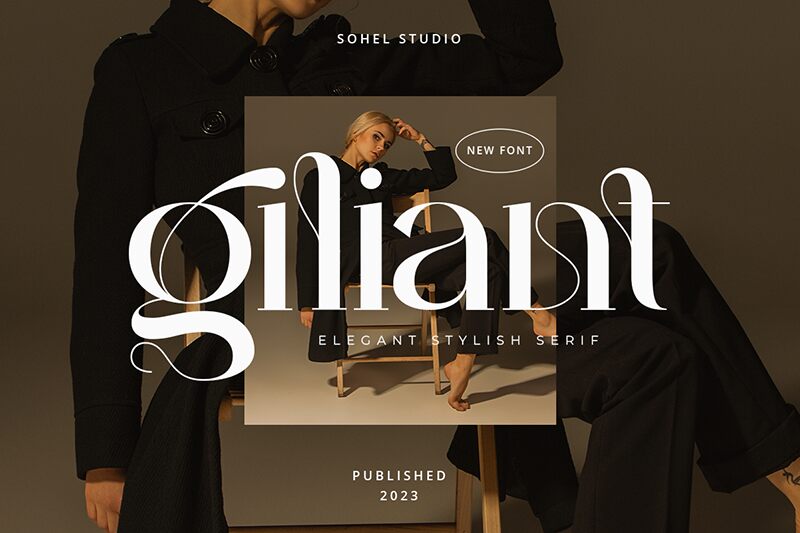
Giliant font by Sohel Studio is an elegant and modern serif typeface that exudes a refined, sophisticated look with a contemporary appeal. Its subtle grace achieves a balanced harmony with the letters’ shape, curves, and lengths almost appearing to flow into one another. It’s smooth yet imposing – combining the best of classic and modern styles.
Use Giliant free serif font in logos, branding projects, business cards, magazines titles or covers. The beautiful typeface also fits book titles or covers, typography designs on clothing items such as T-shirts or jackets. Use it for travel mugs typography, poster or banner headlines, menus for elite restaurants etc.